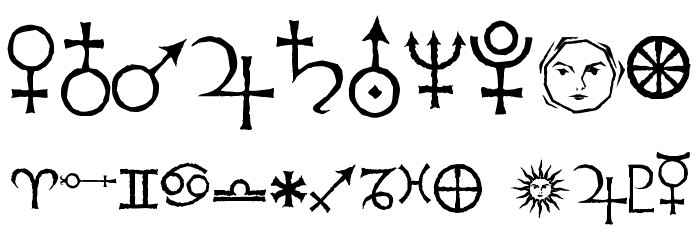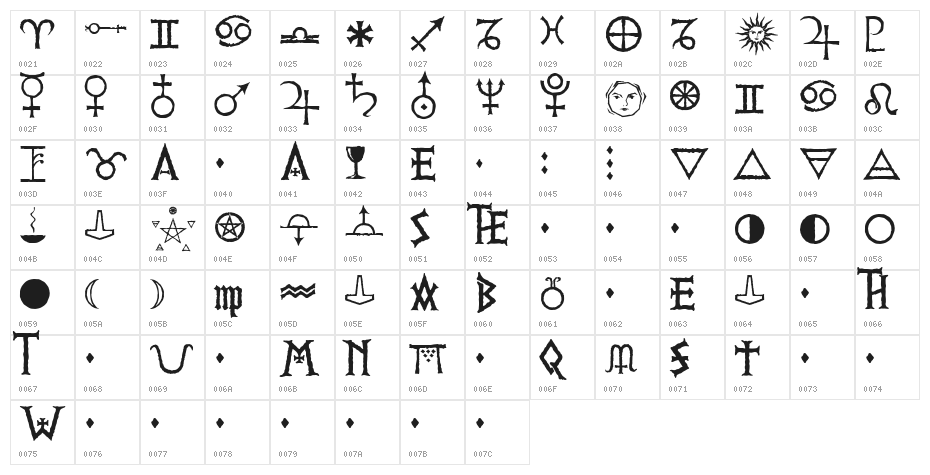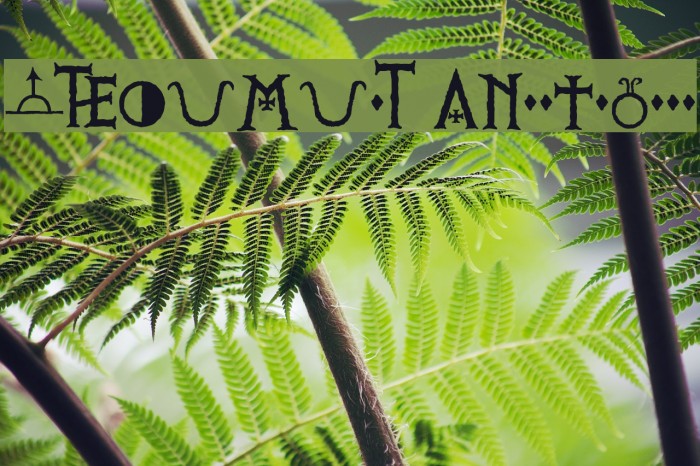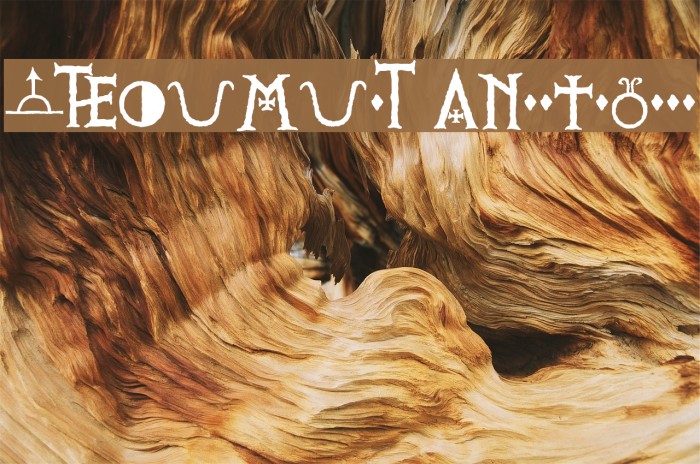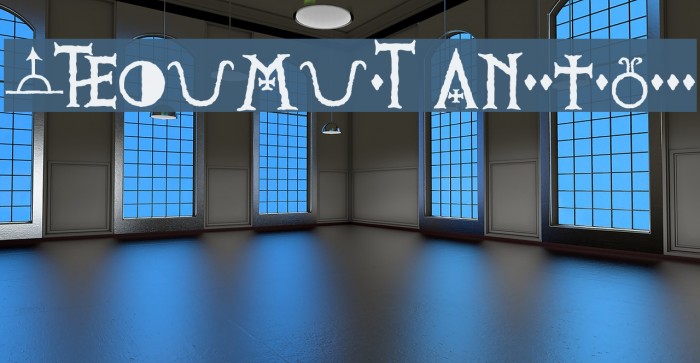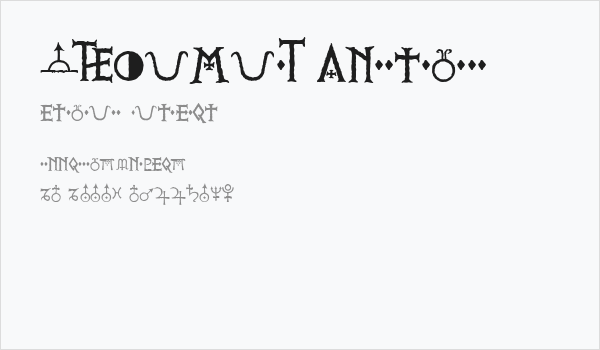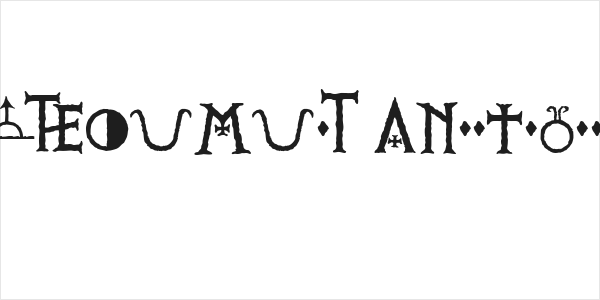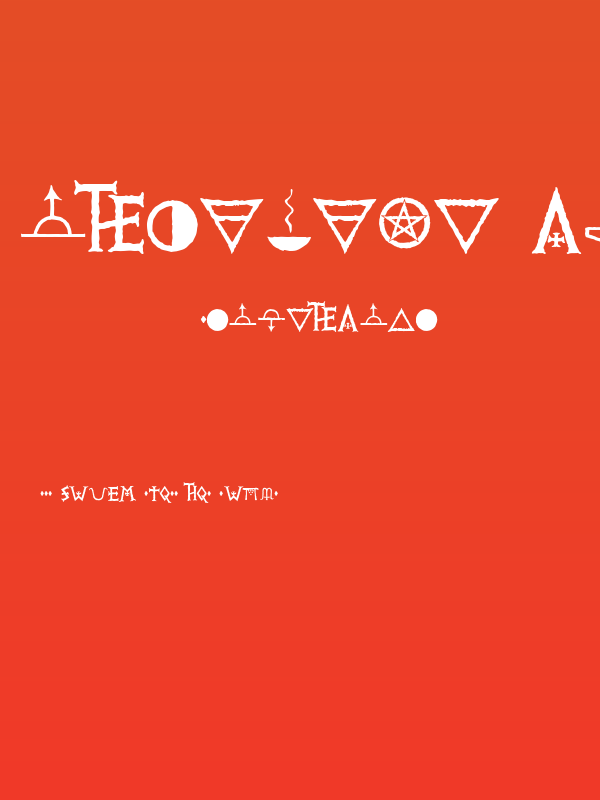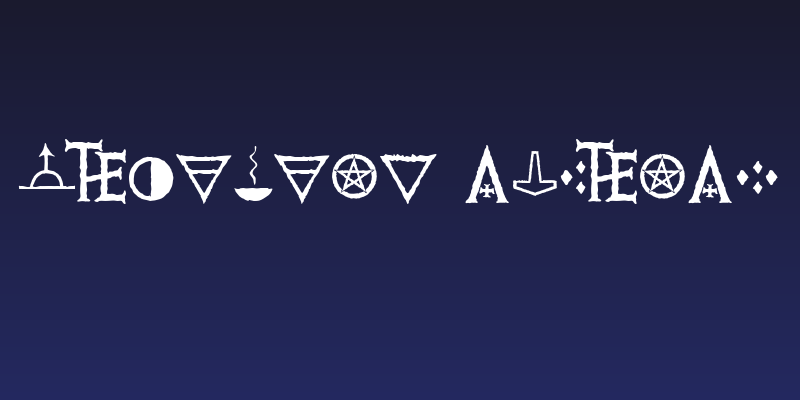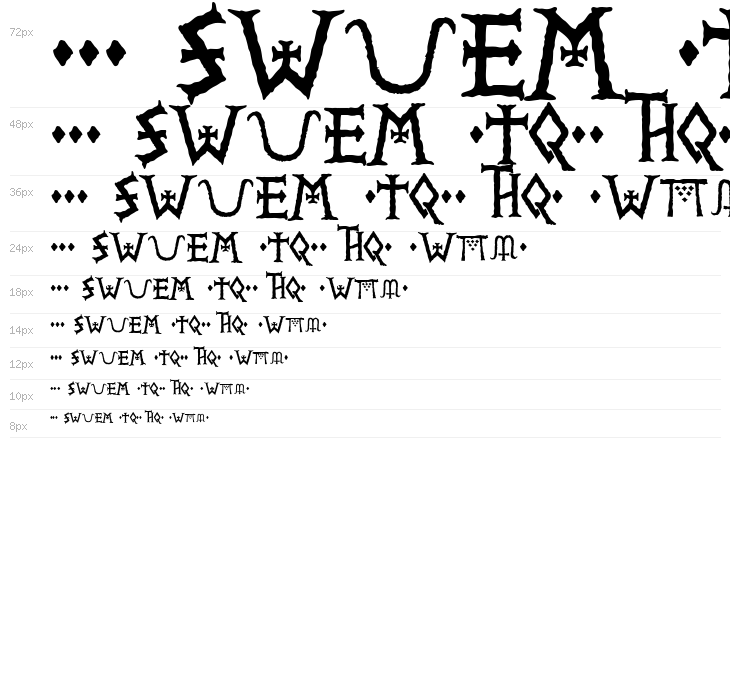
PRViking Alternates Font
PRViking Alternates Description
This font is a unique and decorative typeface inspired by ancient symbols and runes. It features a variety of geometric shapes, mystical symbols, and abstract forms that resemble ancient scripts and iconography. The characters are bold and have a hand-drawn appearance, giving them a rustic and historical feel. The font includes a mix of traditional letterforms and symbolic representations, making it ideal for creative and thematic projects. Its intricate design and symbolic nature make it stand out as a display font, perfect for capturing attention and conveying a sense of mystery or ancient wisdom.
| Use Case | Logos, Headlines, Thematic designs |
| Proposed Projects | Ideal for fantasy-themed designs, game titles, book covers, and any project requiring a mystical or historical aesthetic. |